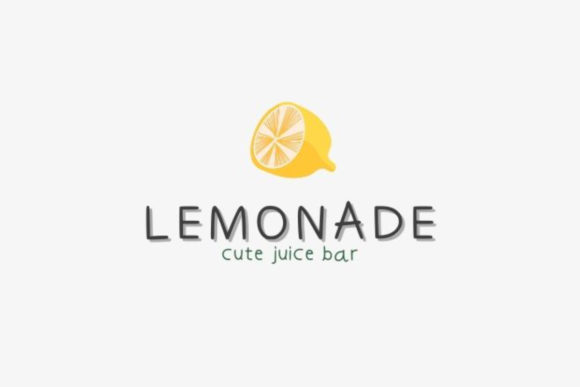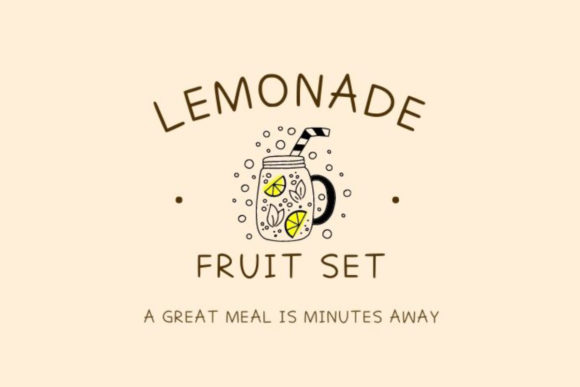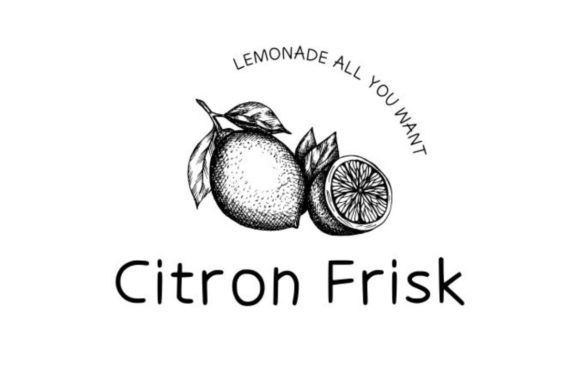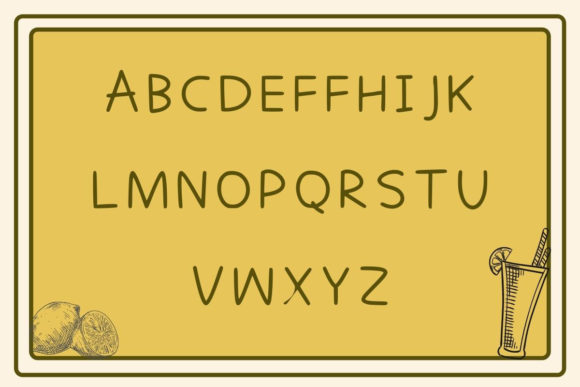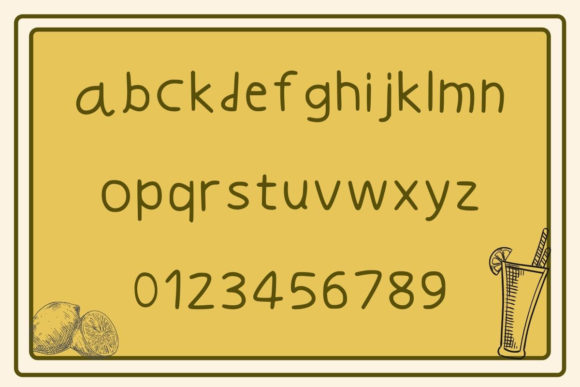
Lemonade Font
About Lemonade Font
“Lemonade” is a simple and authentic handwritten font that adds a personal and realistic touch to your designs. Whether you’re creating chalkboard quotes, teaching materials, or any other project that requires a casual and natural look, this font is a great choice.
The charming imperfections and organic strokes of “Lemonade” make it feel like genuine handwriting, bringing a sense of warmth and personality to your designs. It emulates the style of writing on a chalkboard, creating a nostalgic and playful atmosphere.
When used in chalkboard quotes, “Lemonade” adds a touch of authenticity and creativity. The uneven lines and uneven thickness of the letters give the impression of hand-drawn artwork, making your quotes feel unique and personal. Whether you’re sharing inspirational messages, funny sayings, or educational content, this font enhances the overall visual appeal and creates a memorable impact.
For teaching materials, “Lemonade” brings a natural and approachable feel. The simplicity and clarity of the font make it easy to read, ensuring that your students or audience can easily follow along. From worksheets and flashcards to posters and presentations, this font adds a touch of friendliness and makes the learning experience more engaging.
Additionally, “Lemonade” can be used in various other design projects. Its versatility allows it to fit different themes and styles. From children’s book illustrations to branding for a cozy café, this font brings a sense of authenticity and charm to your creations.
In summary, “Lemonade” is a simple and authentic handwritten font that adds a personal and realistic touch to your designs. Whether you’re creating chalkboard quotes, teaching materials, or other projects, this font brings a charming and approachable atmosphere. Let “Lemonade” infuse your designs with a touch of warmth and personality.